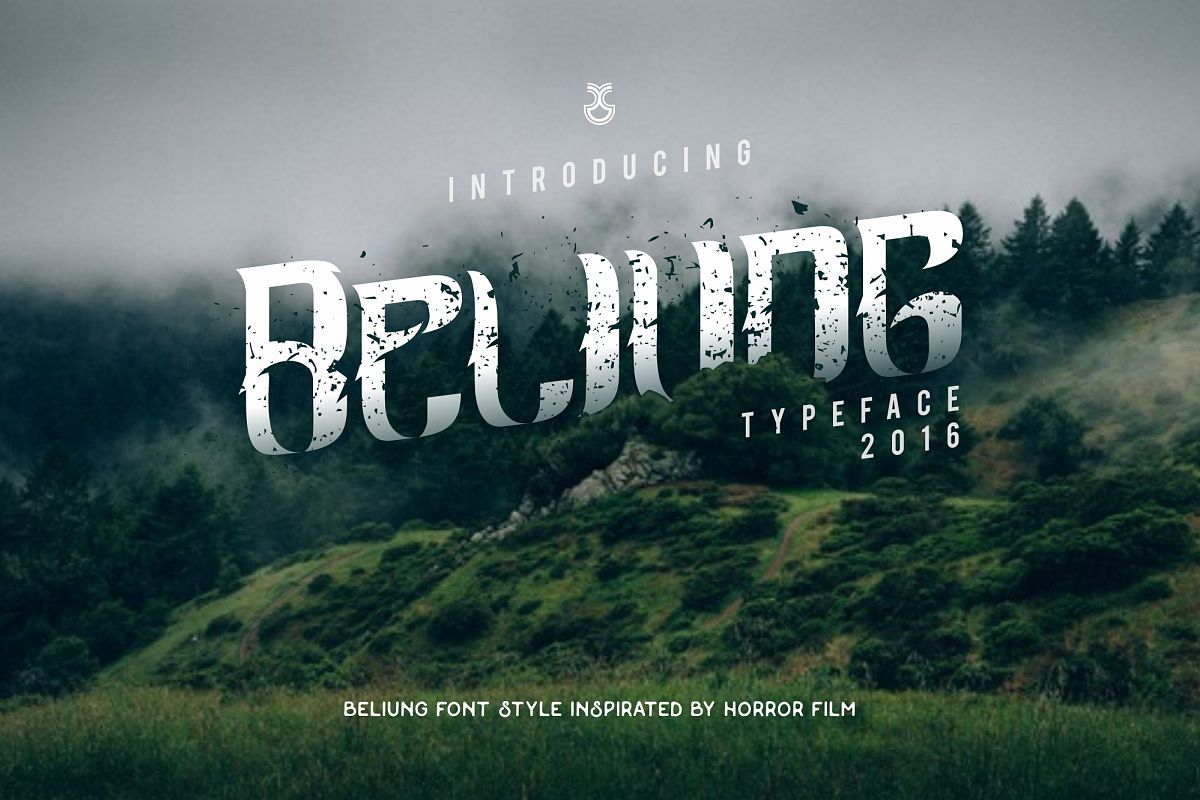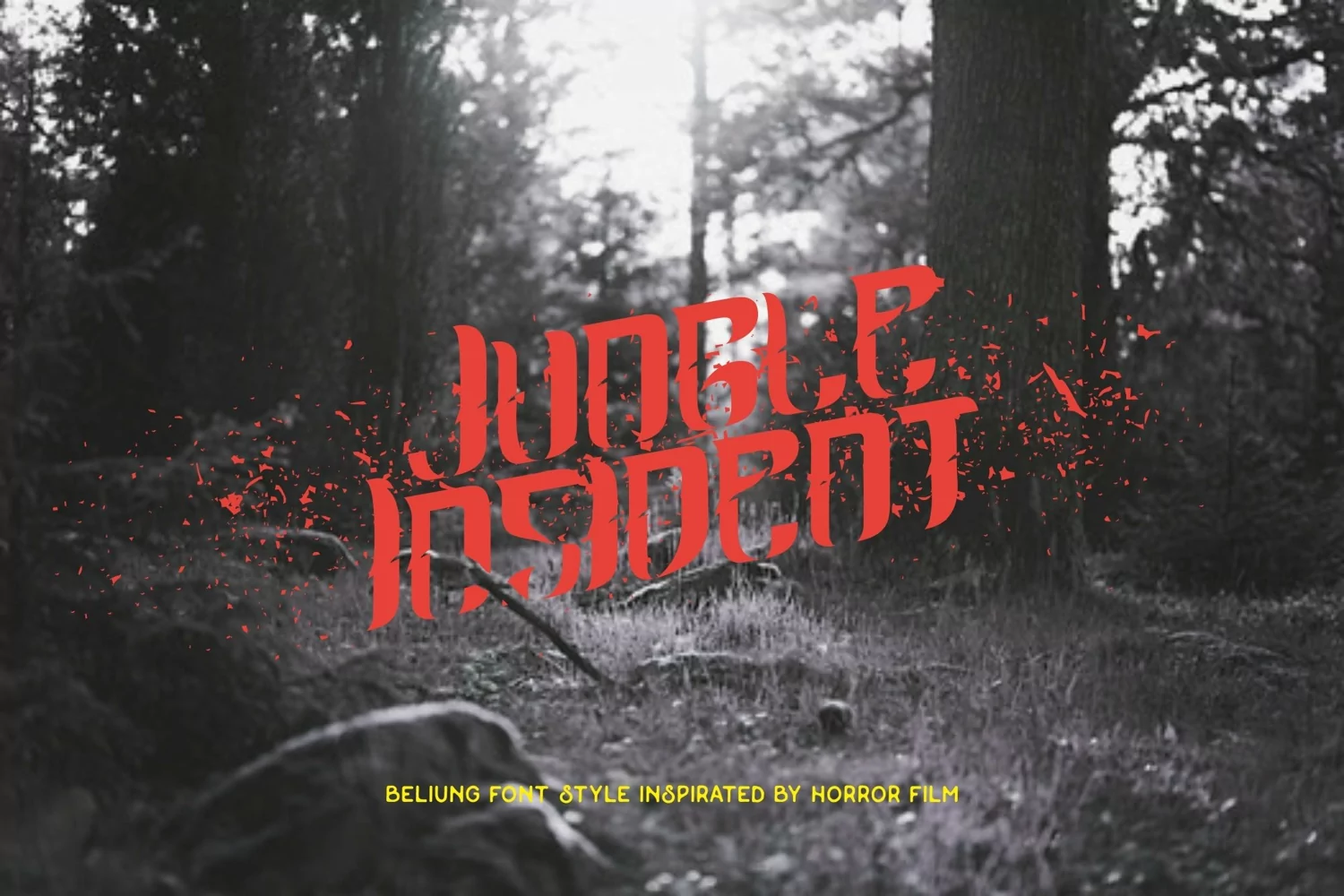
Beliung font style inspirated by horror films. Add some thrills to your designs with Beliung! perfect for creating headline display text very easy. Beliung has its own explicit charisma; perfect for Logos, film, horror text, cover, Advertising, Music Industry, Apparel Design, Labels, Signage, Etc.